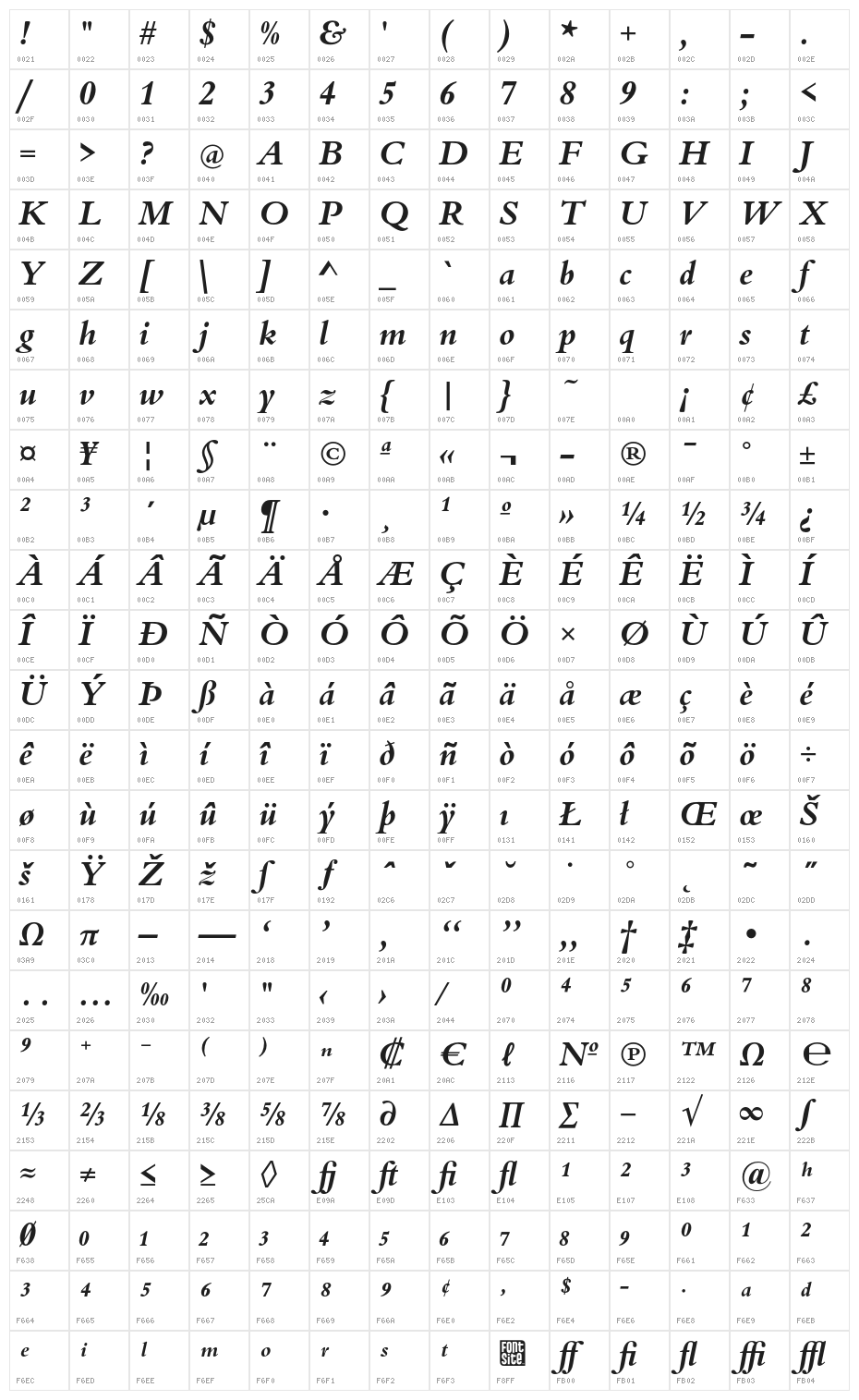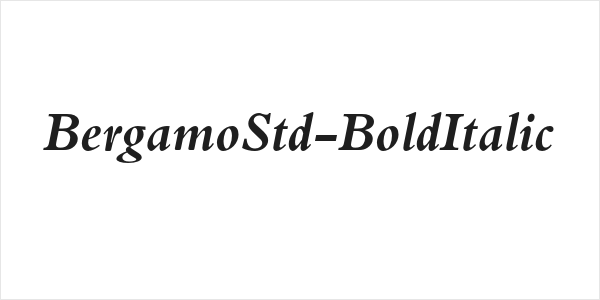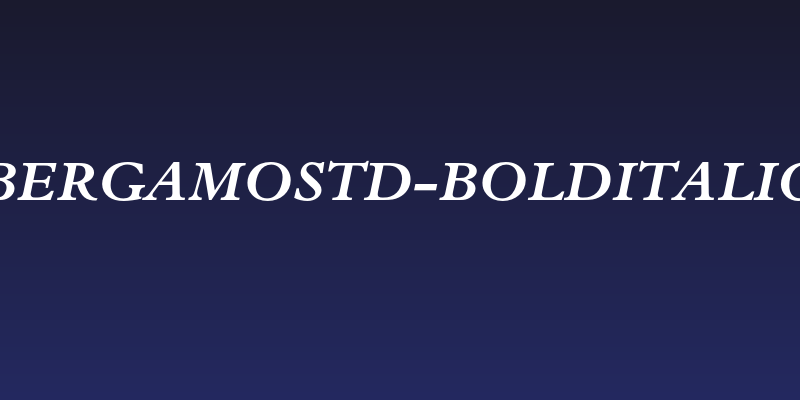
BergamoStd-BoldItalic Font
BergamoStd-BoldItalic Description
This font exhibits a classic and elegant style with a bold and italicized appearance. The serifs are pronounced, giving it a traditional and sophisticated look. The characters have a slight slant, enhancing the italic effect while maintaining readability. The uppercase letters are well-defined and balanced, while the lowercase letters flow smoothly with a consistent stroke width. The numerals are clear and distinct, complementing the overall design. Special characters are crafted with attention to detail, adding to the font's versatility.
| Use Case | Headlines, Logos, Editorial design |
| Proposed Projects | Ideal for formal invitations, elegant branding, book covers, and editorial design. |